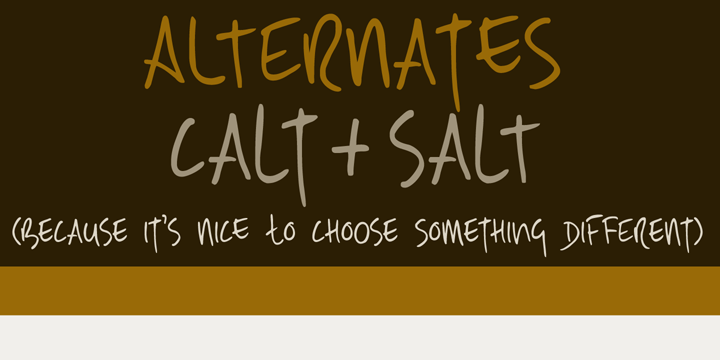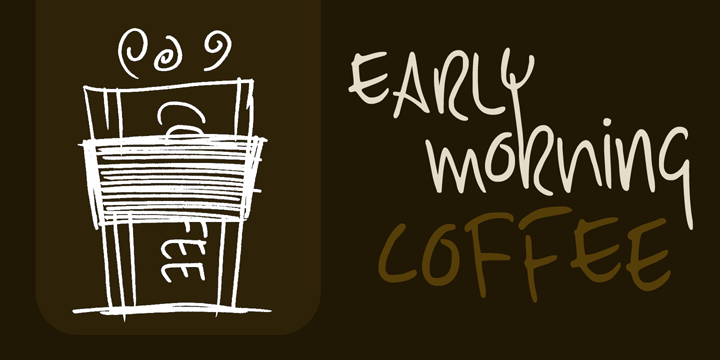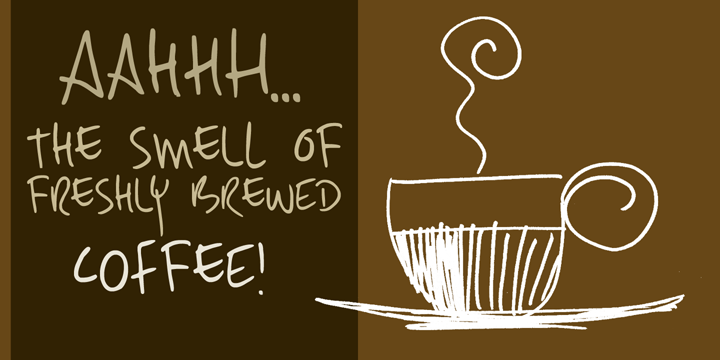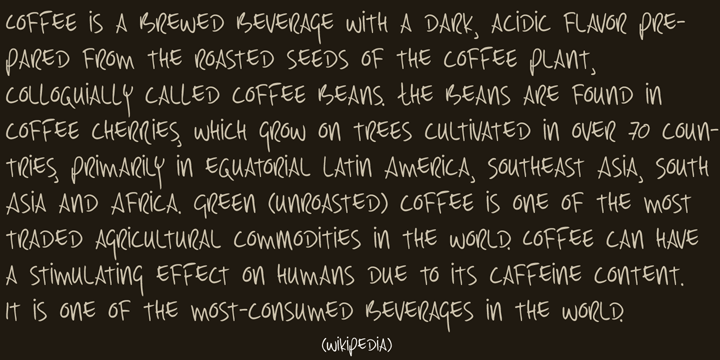
Early Morning Coffee is a hand drawn and hand display font family. This typeface has three styles and was published by Hanoded.
Wake up and smell the….. Early Morning Coffee! It’s a bit messy, I admit, but it has everything you need to make your designs look good. This caffeine fueled script comes with a whole bunch of alternates (CALT & SALT) and has all the diacritics you need.